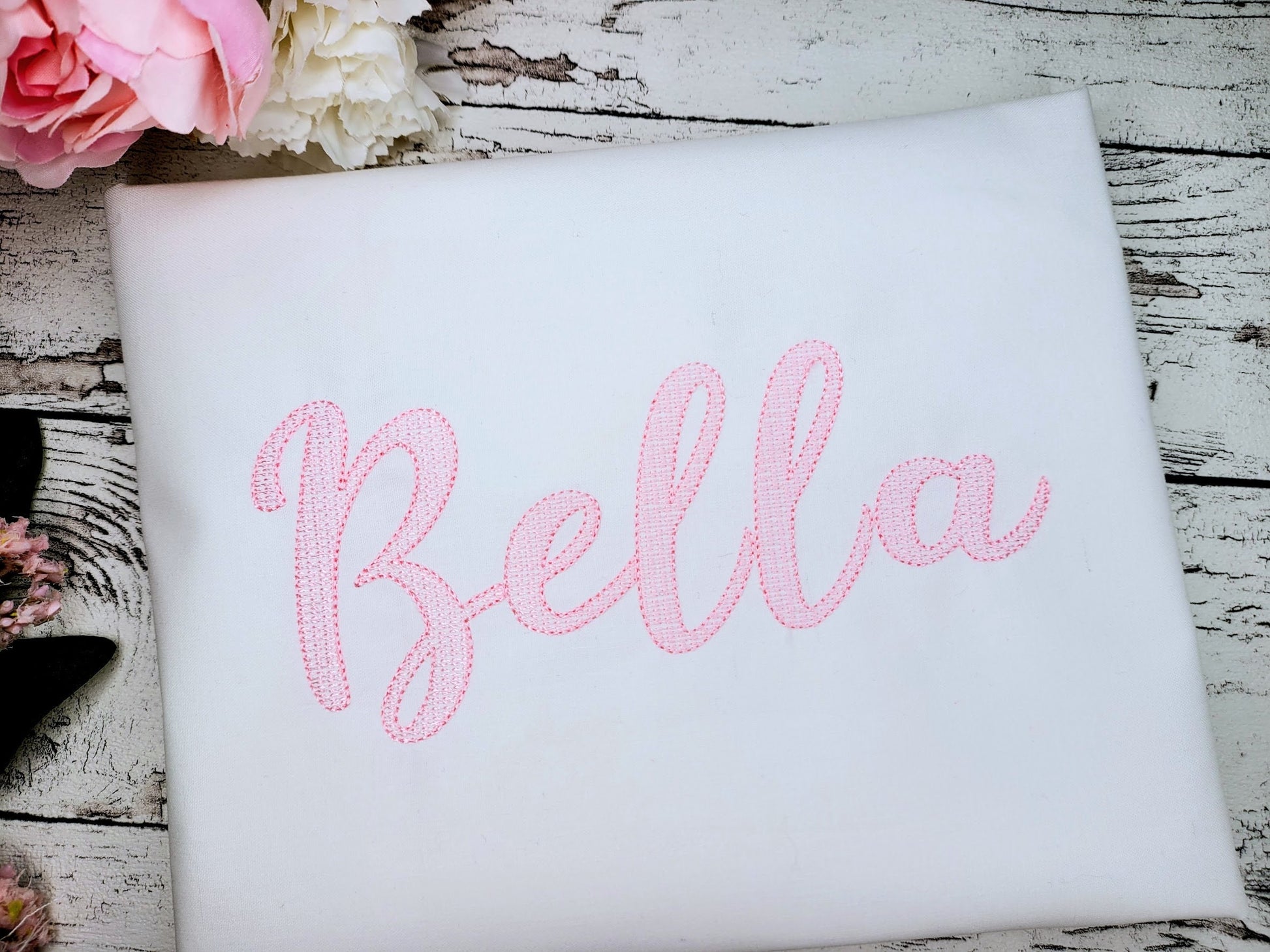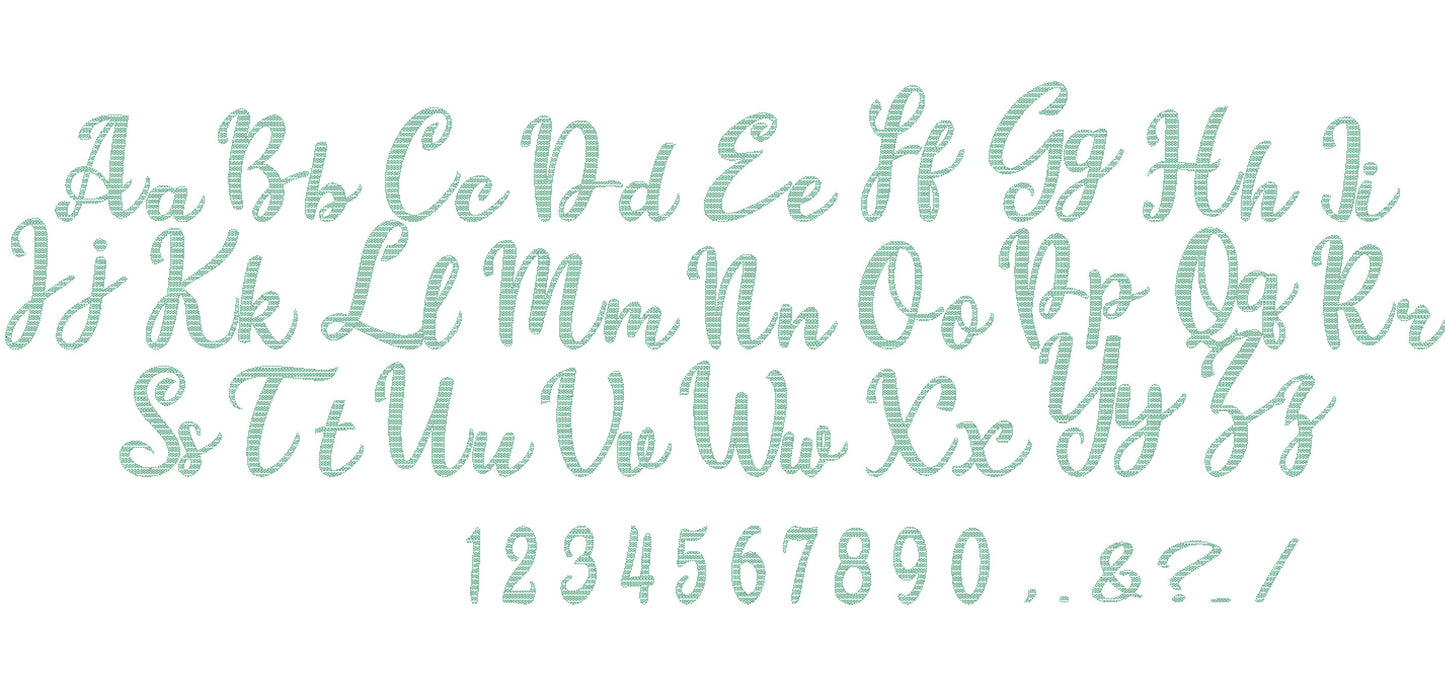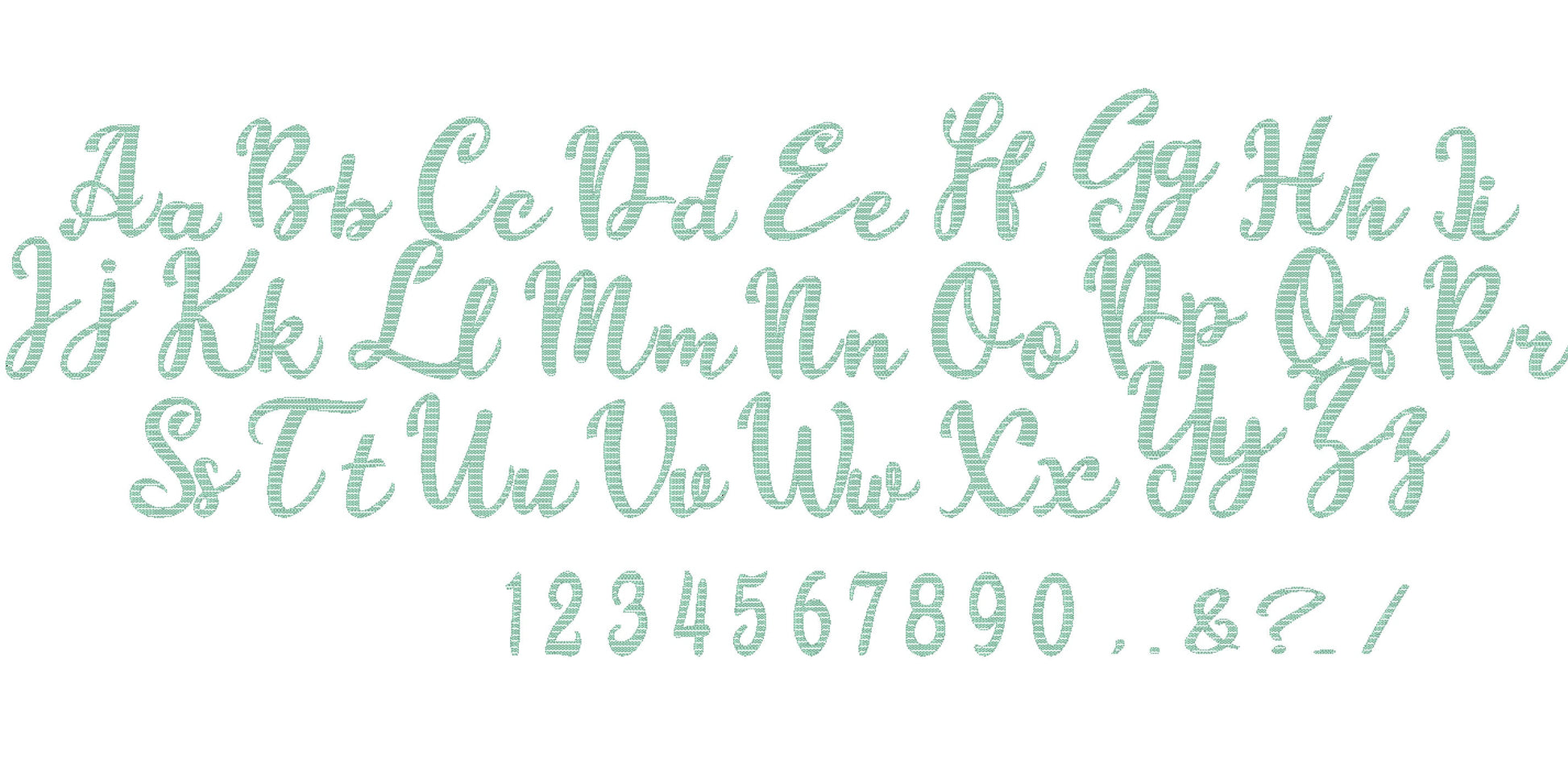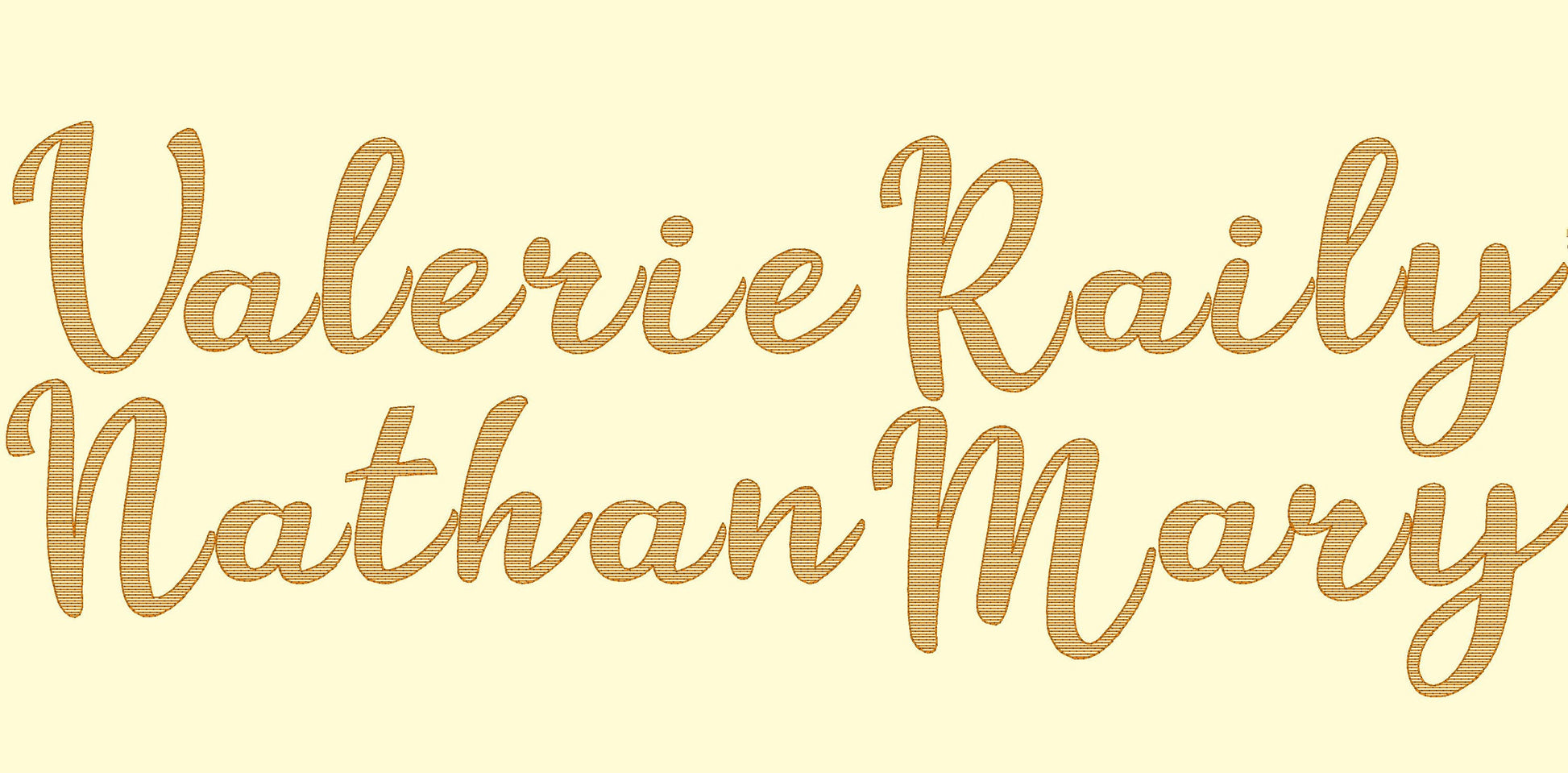
Stitched great and even !
Love the design of these fonts great quality
so adorable, did a test run Love it
Perfect! Good quality! Printed exactly how pictured!
Pretty font, can't wait to try it.
Love this font! Stitched out Beautiful
Cute font, perfect for my project.
Embroidered beautifully and so easy to set up!
Love this font! Truly on of mt favorites!
Beautiful font, easy to read lettering and easy stitch out.
Beautiful font, love the light patterned fill!
Stitched out so well! Thank you!
This was really nice, embroidered out good.
Turned out really cute! -
Great font pattern, stitched very well
Looks great on the computer now to put it on something.
Love this font so much! It's so unique looking. Will be purchasing from this shop in the future. I am on my 7th font from here and I adore them all!
Love this font. Used it several times now and it stitches out perfectly
Love this font! Stitched out great!
Great font, stitched like a dream
What a fun font! Looks like a summertime favorite for me.
Great stitch out on this font!
Stitched out as shown, great font
Super cute font for a little girl.
Ich habe es ausprobiert- super. Sehr leichter Stich, was ich wollte.
This file Stitched great !